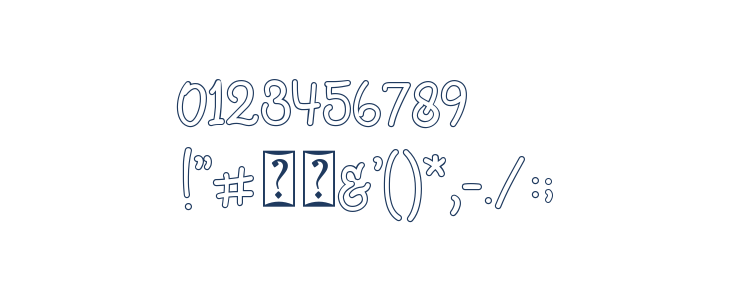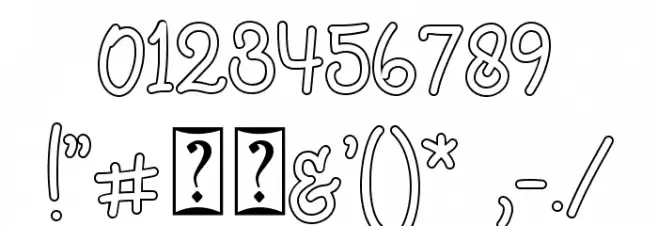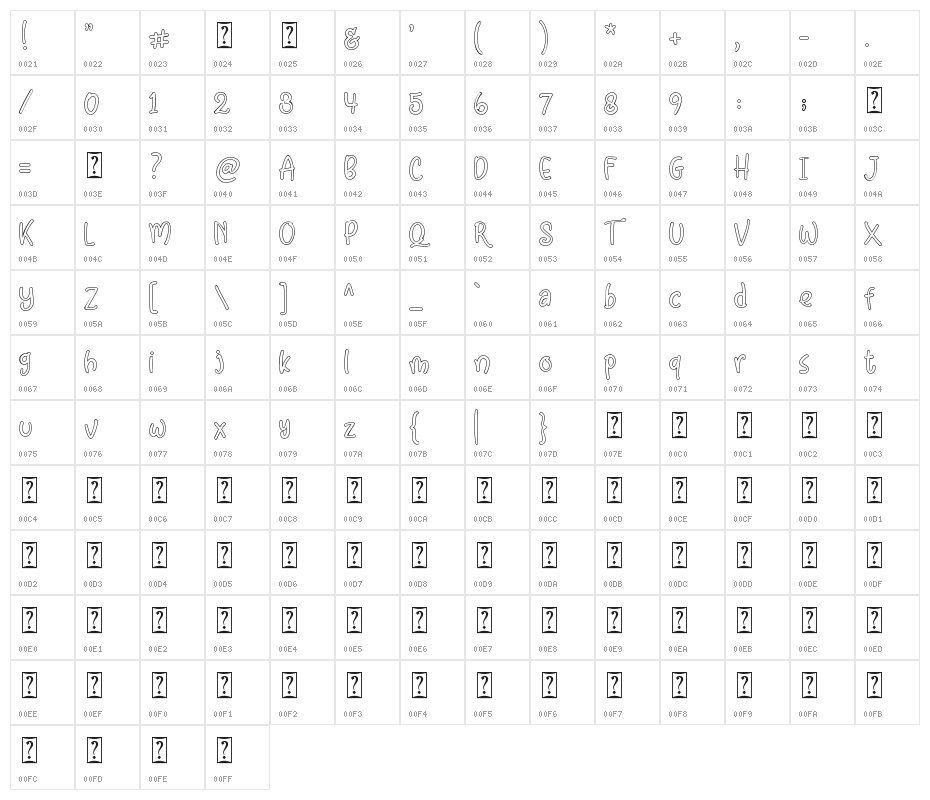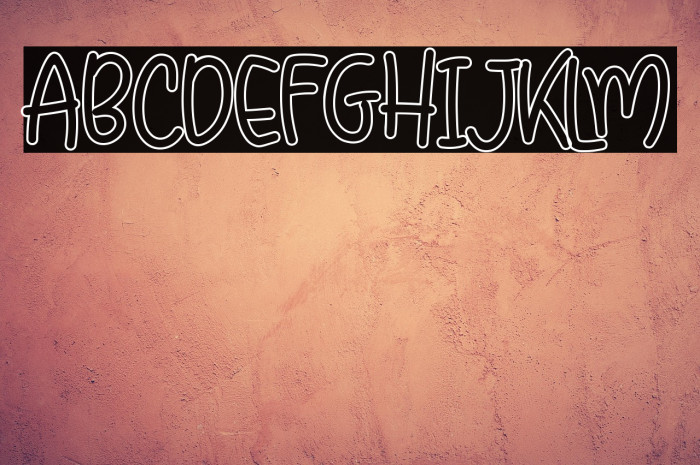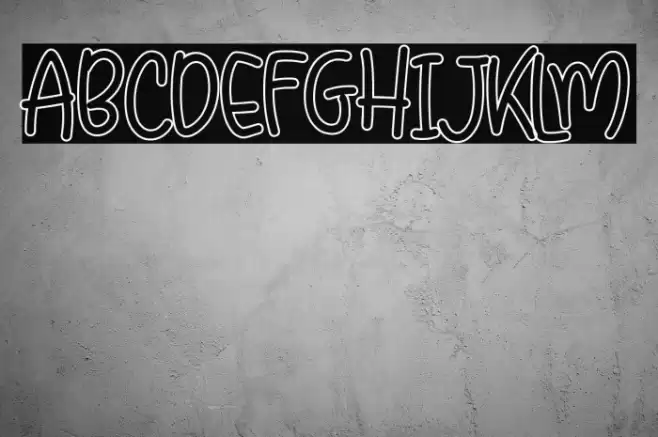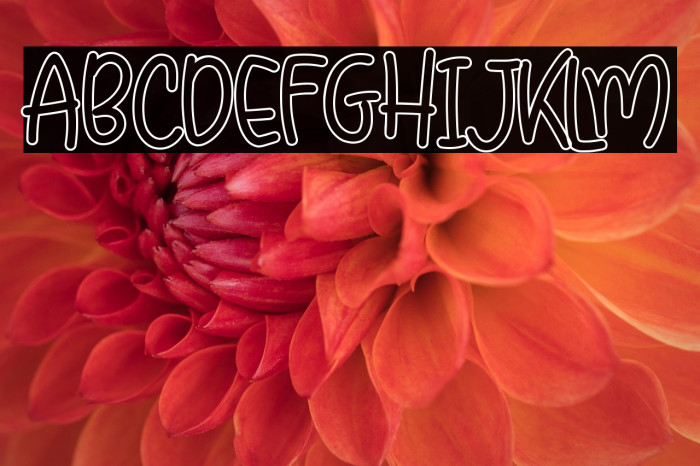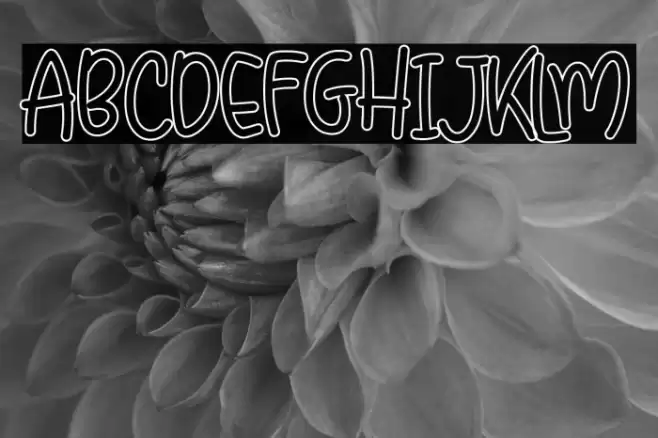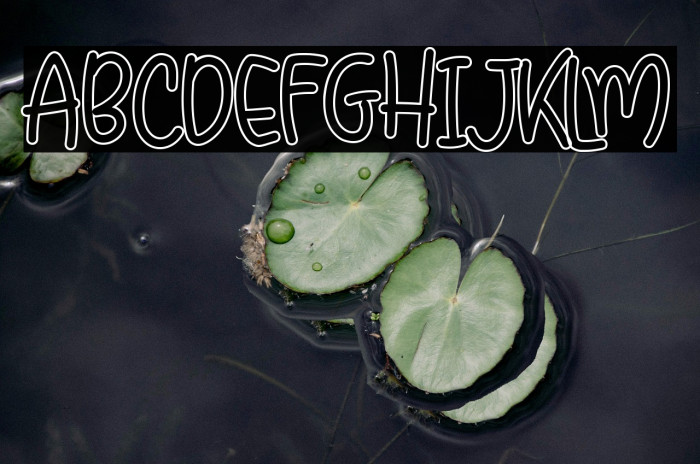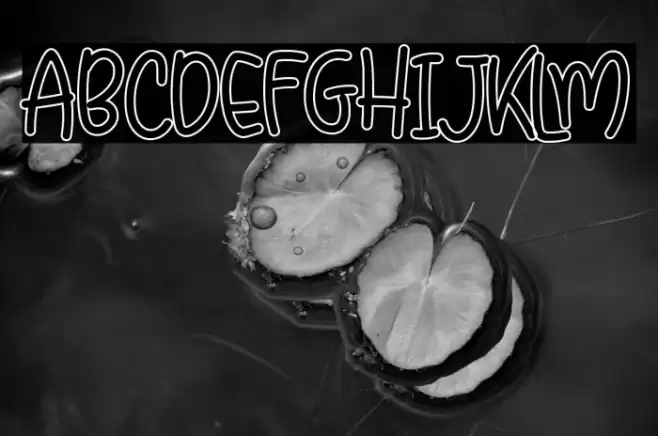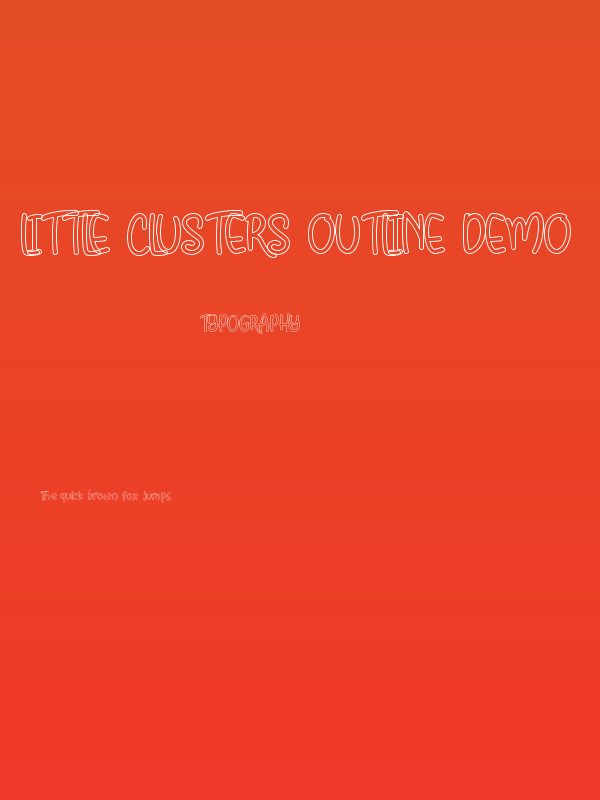
Little Clusters Outline Demo Font
Little Clusters Outline Demo Description
This playful and whimsical font features an outline style that gives it a unique and eye-catching appearance. The characters are rounded and slightly irregular, adding a hand-drawn feel to the design. The uppercase and lowercase letters maintain a consistent style, with a slight tilt and varying stroke widths that enhance its casual and friendly look. The numbers and special characters are designed to match the overall aesthetic, making it versatile for various creative projects. Its outline nature allows for creative color fills or layering effects in design applications.
| Overall Style | Whimsical, Playful, Hand-drawn |
| Use Case | Logos, Posters, Creative projects |